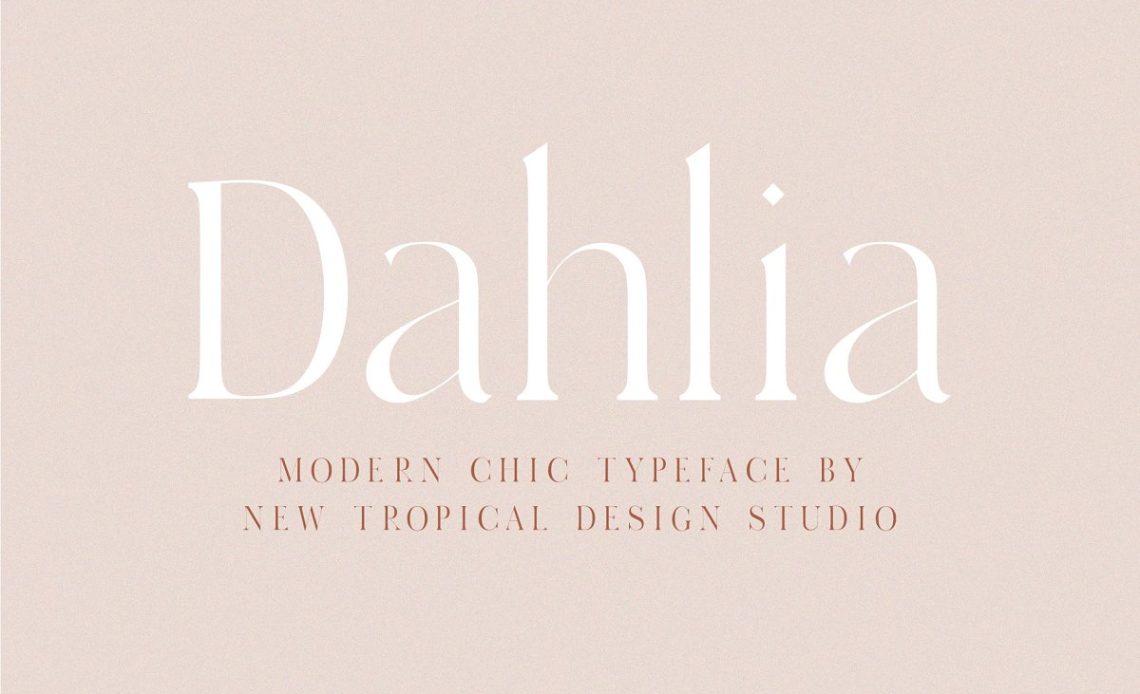
Introducing Dahlia - the Modern Serif Font that combines timeless elegance with a contemporary edge. Created by the talented designers at New Tropical Design Studio, this font is a must-have for anyone looking to make a statement with their typography.
With its sharp serifs and diamond dots, Dahlia exudes a chic Persian style that is sure to catch the eye. Whether you're designing a magazine masthead, crafting stunning pull quotes, or creating a captivating wordmark logo, this versatile font has got you covered.
One of the standout features of Dahlia is its ability to maintain legibility while still delivering a modern twist. The clean lines and refined curves make it a pleasure to read, ensuring that your message is conveyed effortlessly to your audience.
The uppercase and lowercase letterforms of Dahlia offer a harmonious balance, allowing you to play with different combinations and create visually stunning layouts. Additionally, the inclusion of numbers and punctuation ensures that you have everything you need to bring your designs to life.
Don't settle for ordinary fonts when you can have something extraordinary. Dahlia is the epitome of elegance and sophistication, perfect for those who strive for perfection in their designs. Take your typography to new heights and make a lasting impression with Dahlia - the Modern Serif Font that defines excellence.